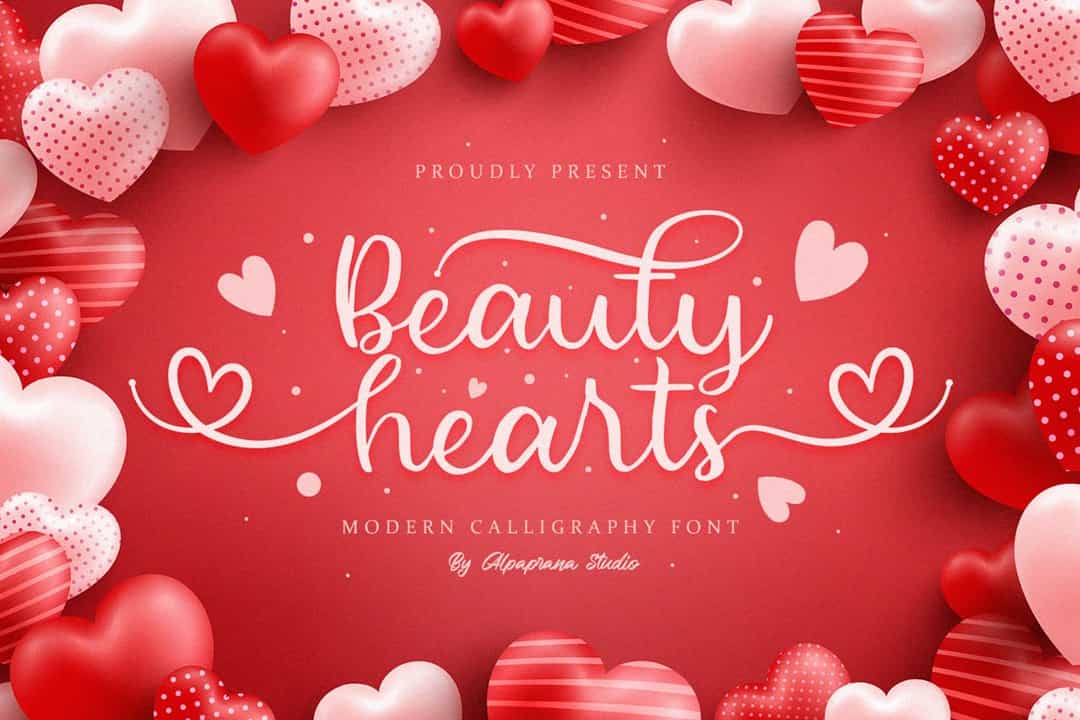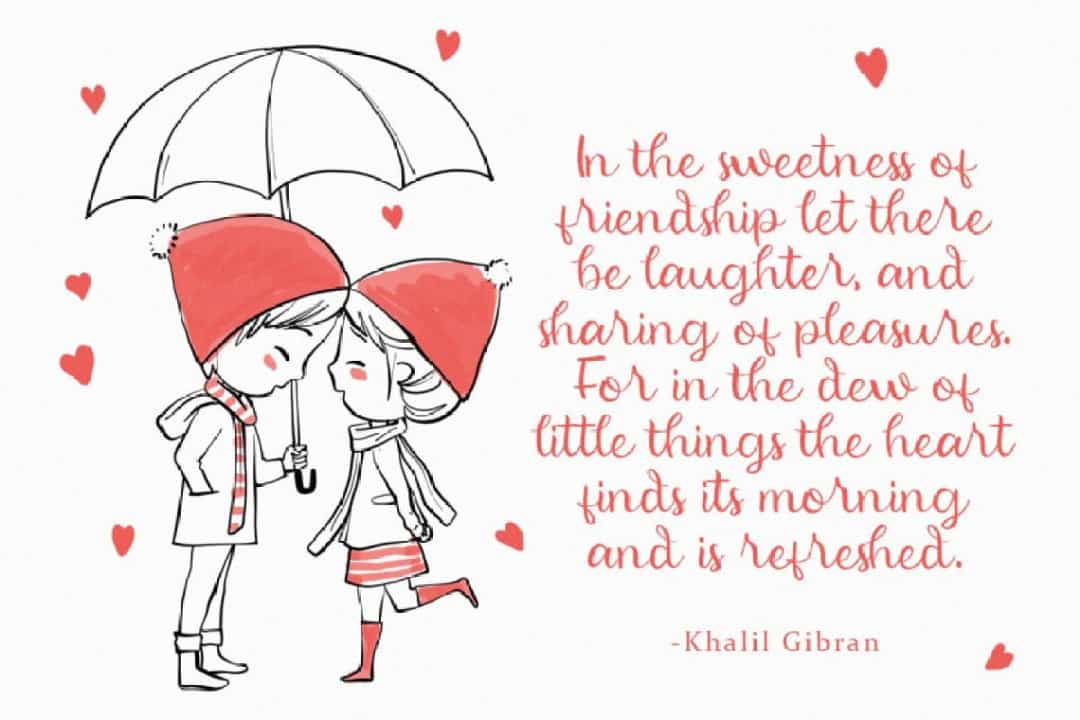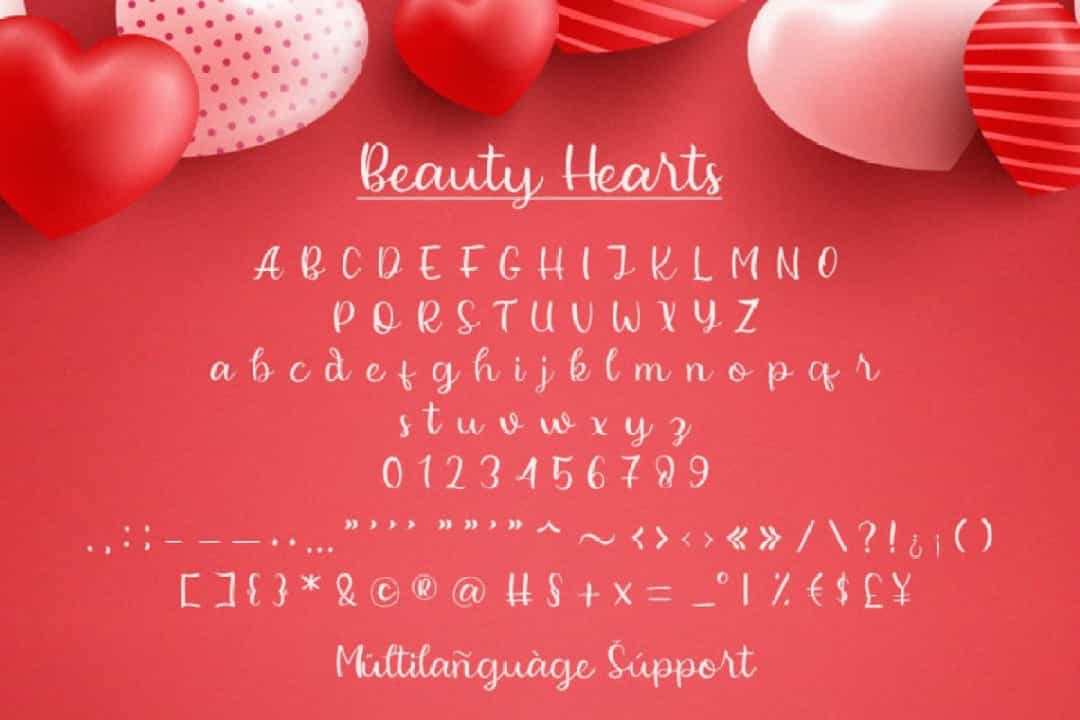
Beauty Hearts is a set of sweet handwritten fonts that have a rather natural and casual look of calligraphy. Suitable for branding and logo design and usable for lettering and logotype in clothing, packaging, magazines, posters and totes, T-Shirts books, photography, special events or any other form of design project.